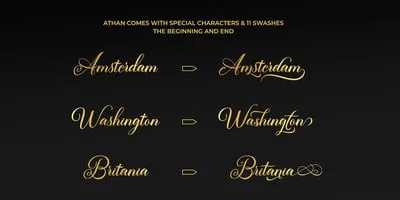
Athan Script
Athan Script Font
Athan Script Font excels in religious design applications including mosque communications, Islamic cultural centers, Ramadan celebration materials, religious book publications, prayer time applications, Islamic wedding invitations, halal product packaging, religious education materials, spiritual retreat promotions, and faithful lifestyle campaigns. This sacred typeface brings authentic Islamic character to devotional design projects.
What makes Athan Script Font truly exciting is its perfect embodiment of the call to prayer with flowing letterforms that evoke the spiritual beauty and rhythmic cadence of the Islamic Athan through graceful calligraphic elements. The font features spiritually crafted characters with sacred proportions and devotional appeal that convey faith, devotion, and the timeless connection between earthly expression and divine worship. Its spiritual personality and Islamic character make it ideal for brands serving Muslim communities, religious organizations, and audiences who appreciate Islamic art, spiritual devotion, and the profound beauty of Arabic calligraphy that elevates written communication to sacred art.
The Athan Script Font family typically includes Regular weight with potential Islamic flourishes and calligraphic elements that enhance its sacred character. These devotional options provide designers with complete Islamic styling while maintaining the font's distinctive spiritual elegance and religious presentation across various Islamic applications and faith-based contexts.
Whether you're developing Islamic community branding, creating religious campaigns, or designing spiritual materials, Athan Script Font delivers the religious authority and Islamic sophistication that faith-focused projects require. Its exceptional sanctity and spiritual appeal make it invaluable for designers working with Islamic organizations, religious institutions, and faith-based brands requiring typography that honors Islamic tradition, celebrates calligraphic artistry, and reflects the sacred journey of faithful believers who find spiritual guidance and community connection through the beautiful call to prayer that unites Muslims worldwide in devotional practice.